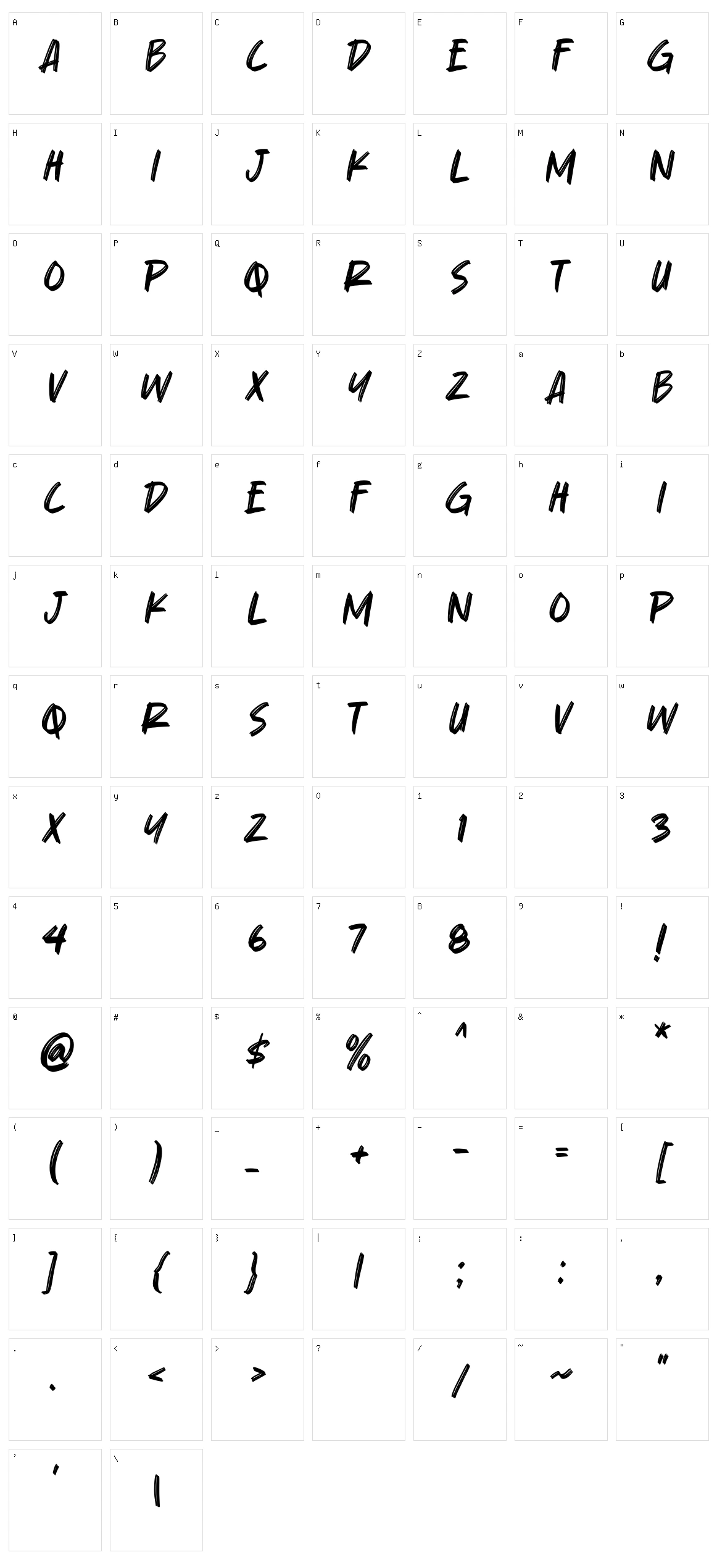
The free font Rolla Cossta is carefully designed by Gassstype, showcasing a thoughtful balance of creativity and usability and falls under the Script font style. When you download the ZIP file, it contains only 751.92 KB of font files, making it lightweight and quick to download. Please review the license details below to understand permitted usage and distribution rights. If license information is not available, we recommend using this font for personal projects only or contacting the author directly for commercial usage permissions.